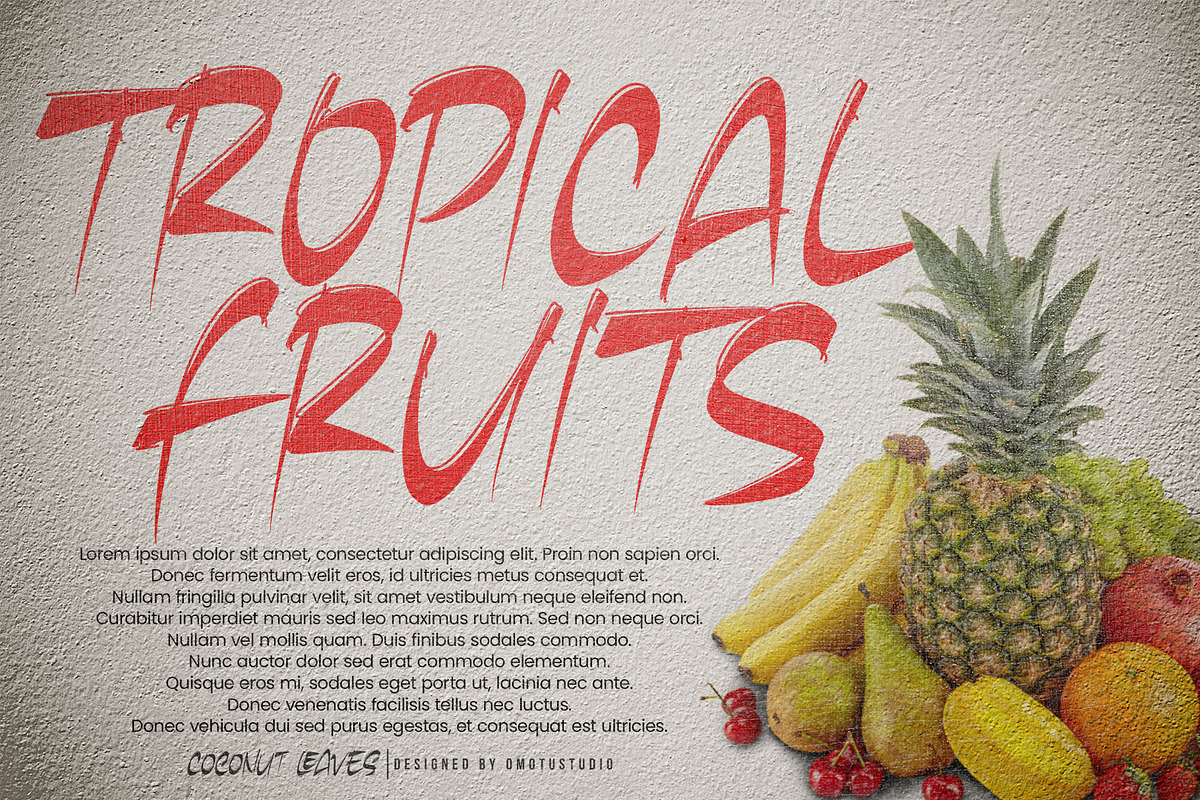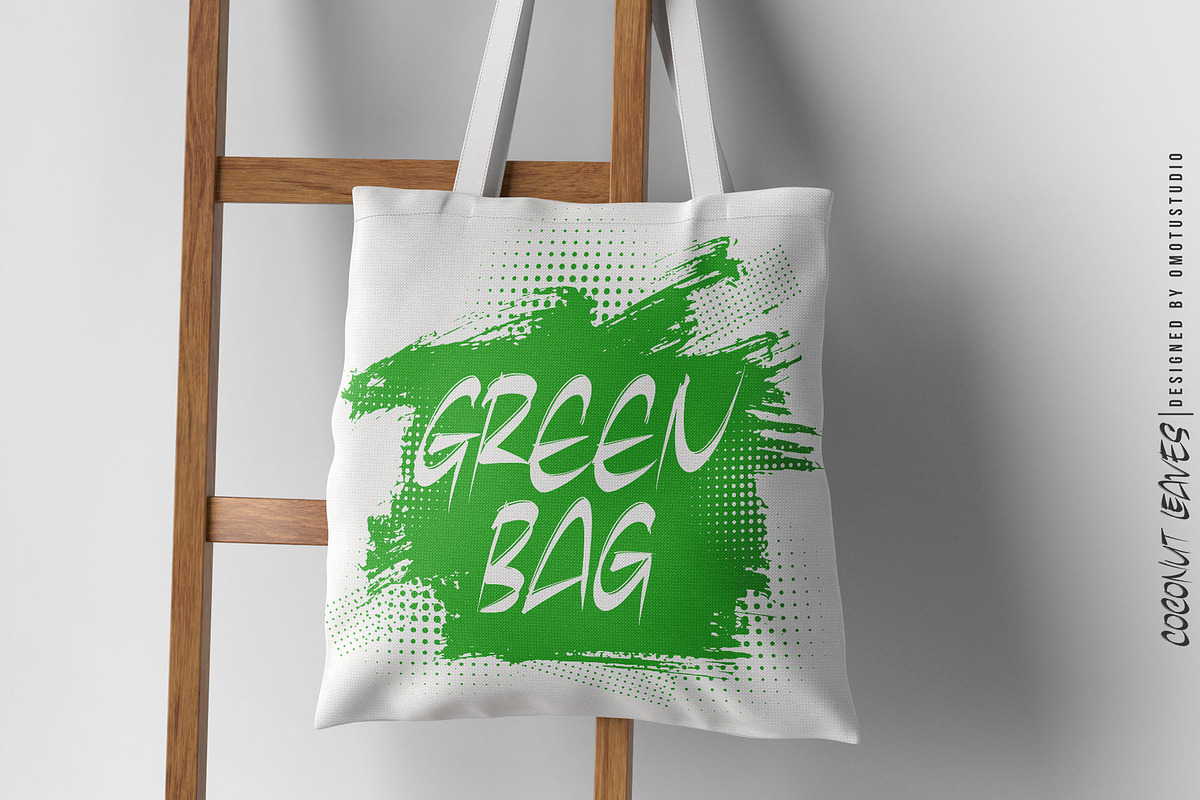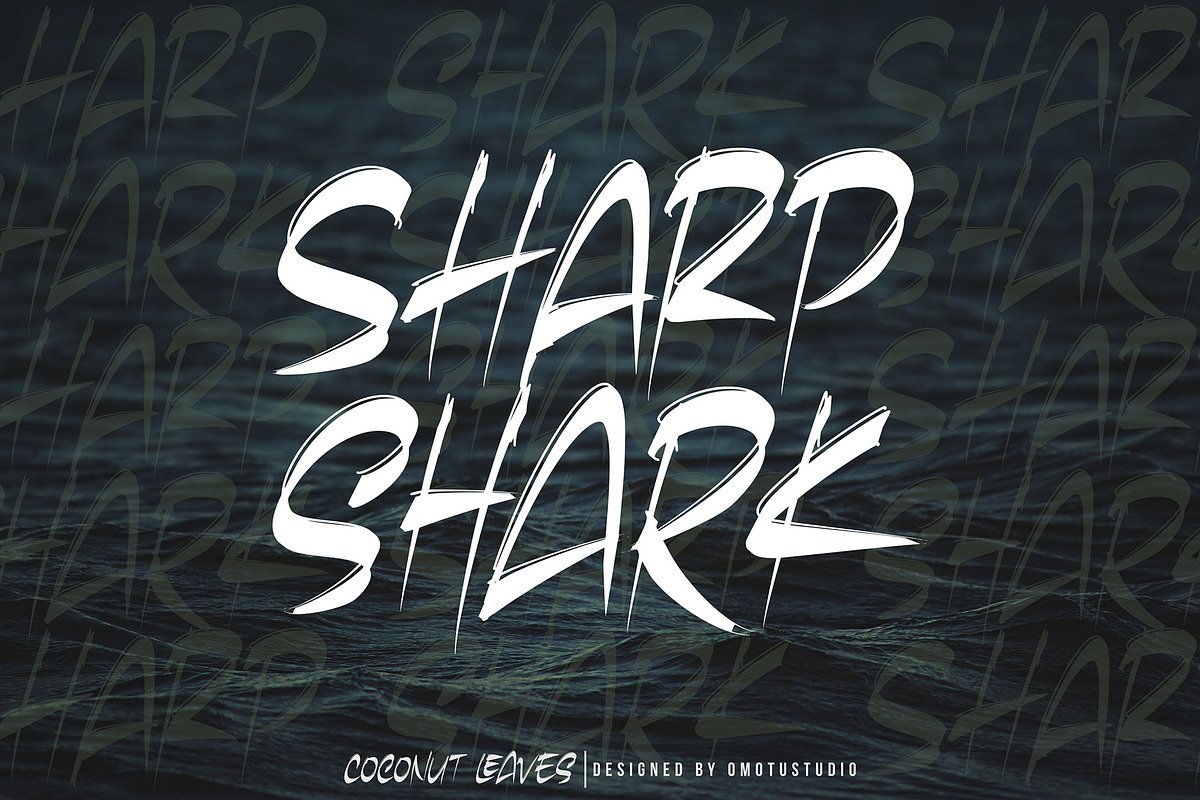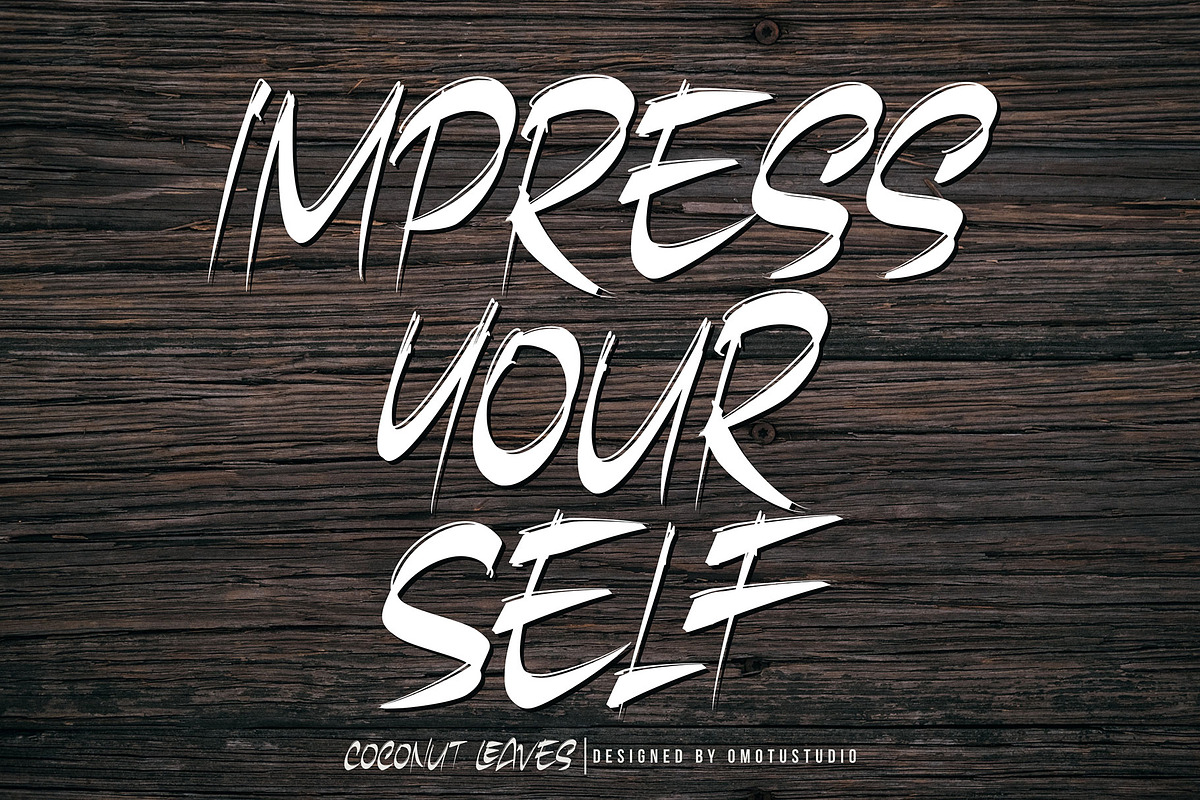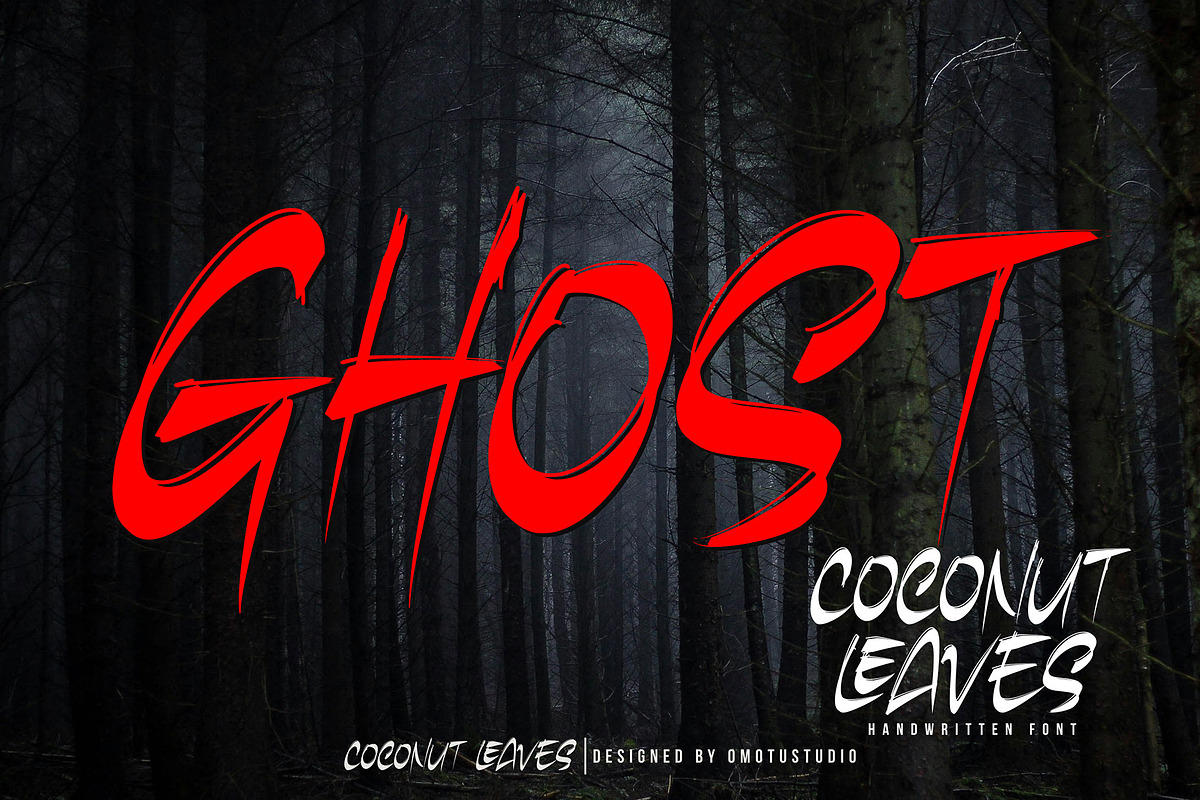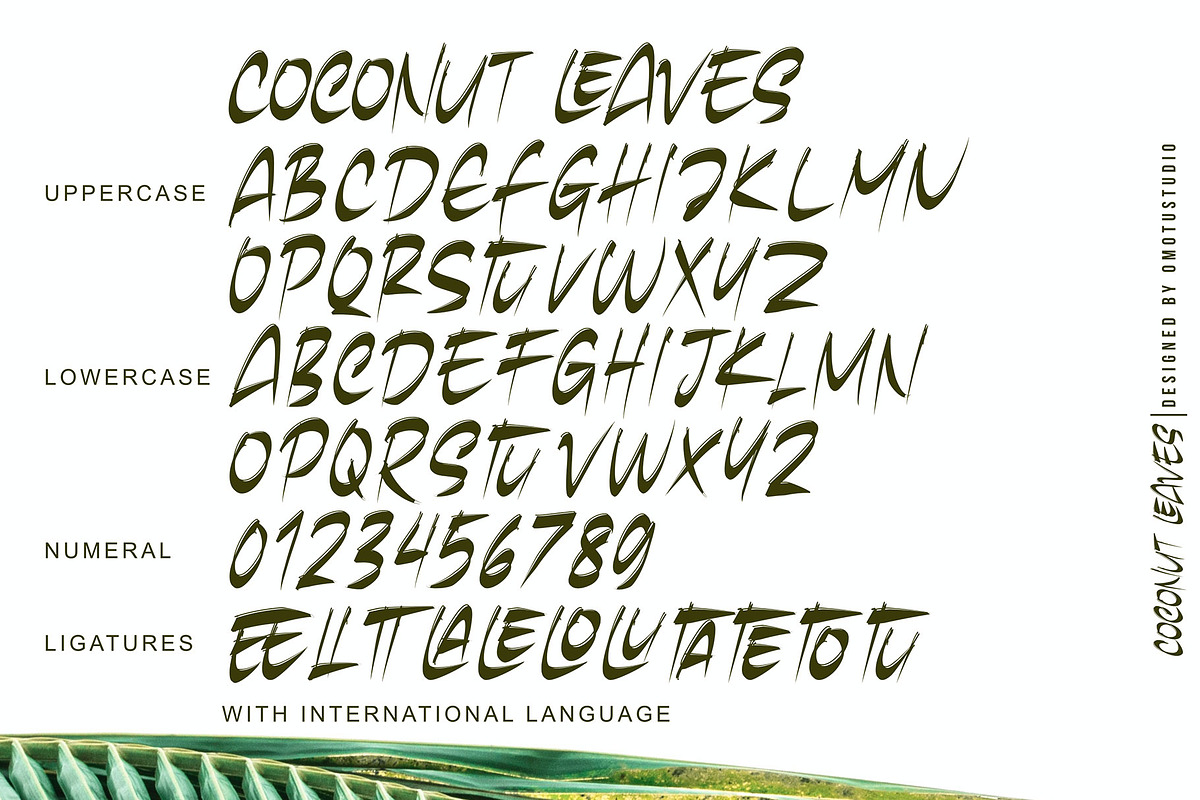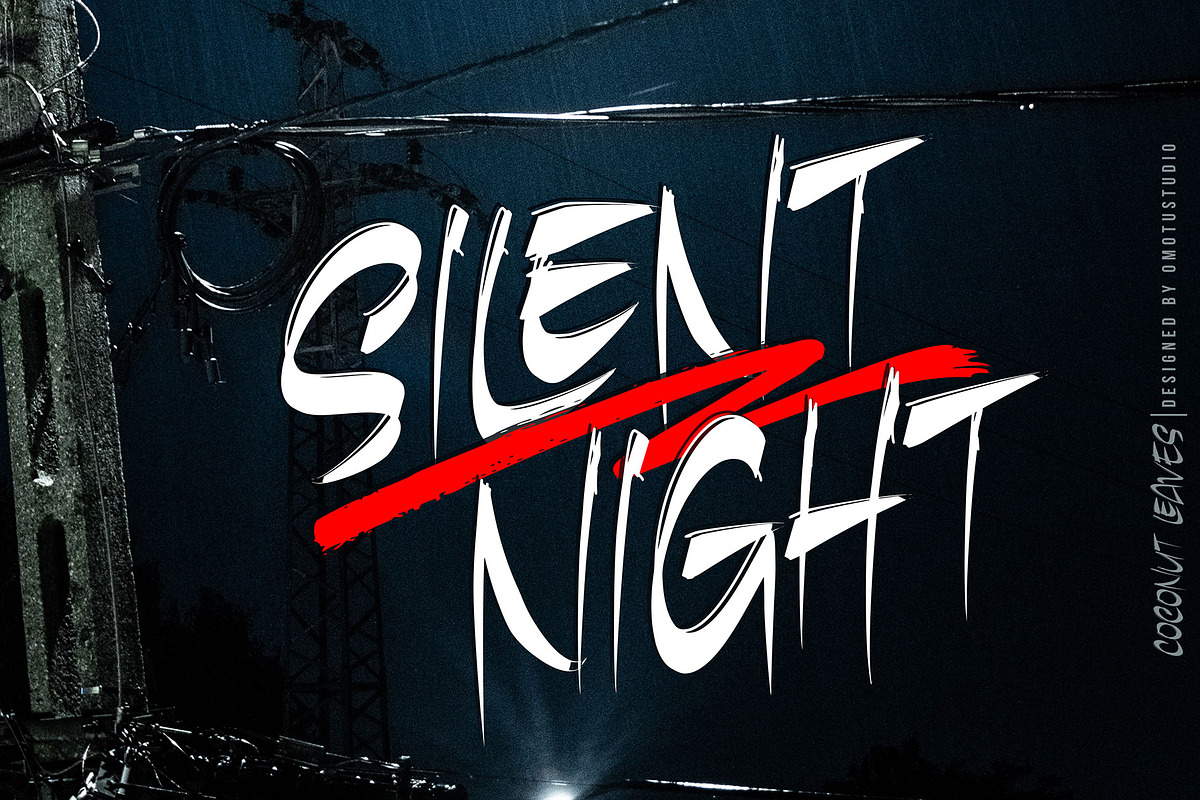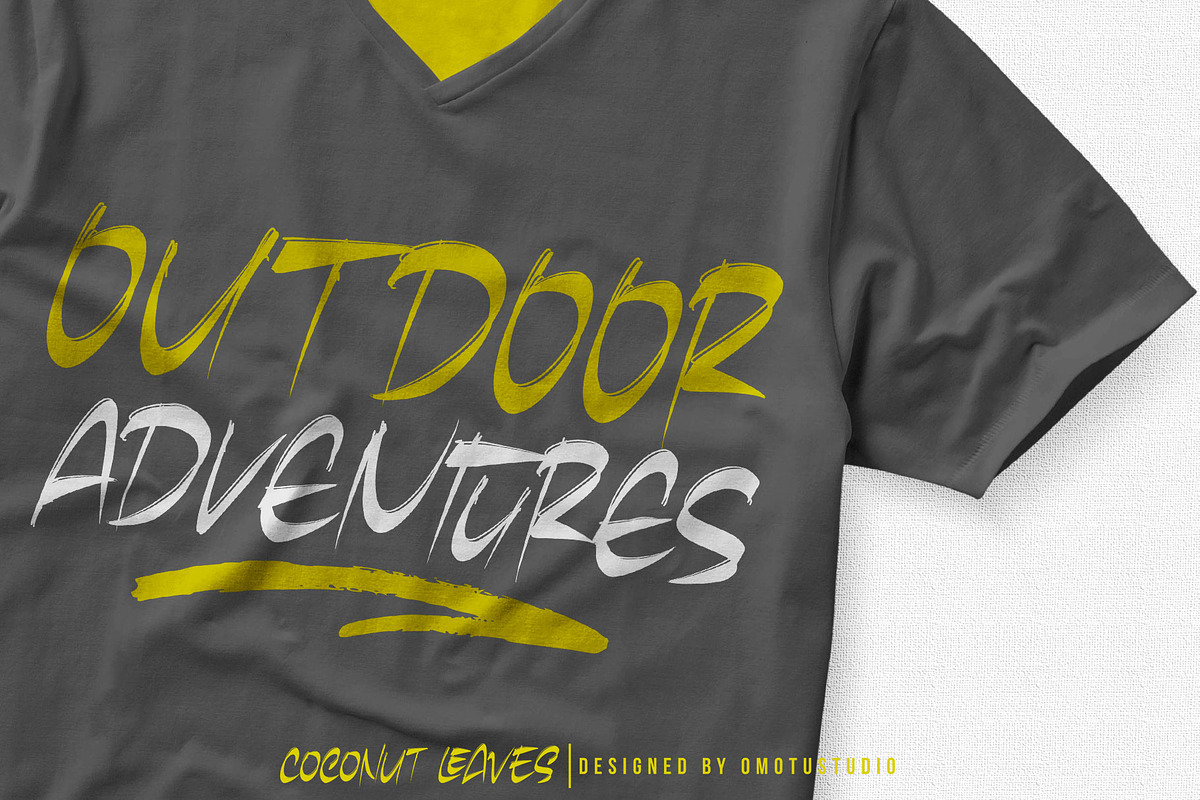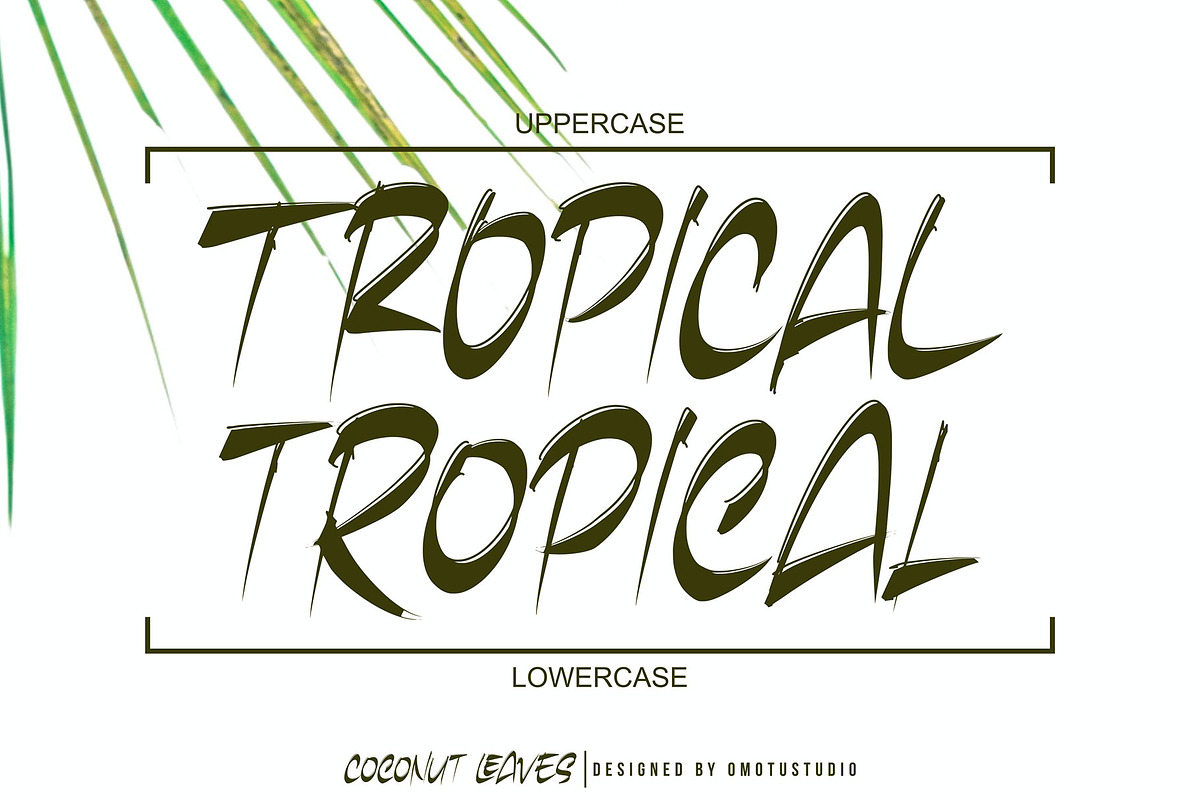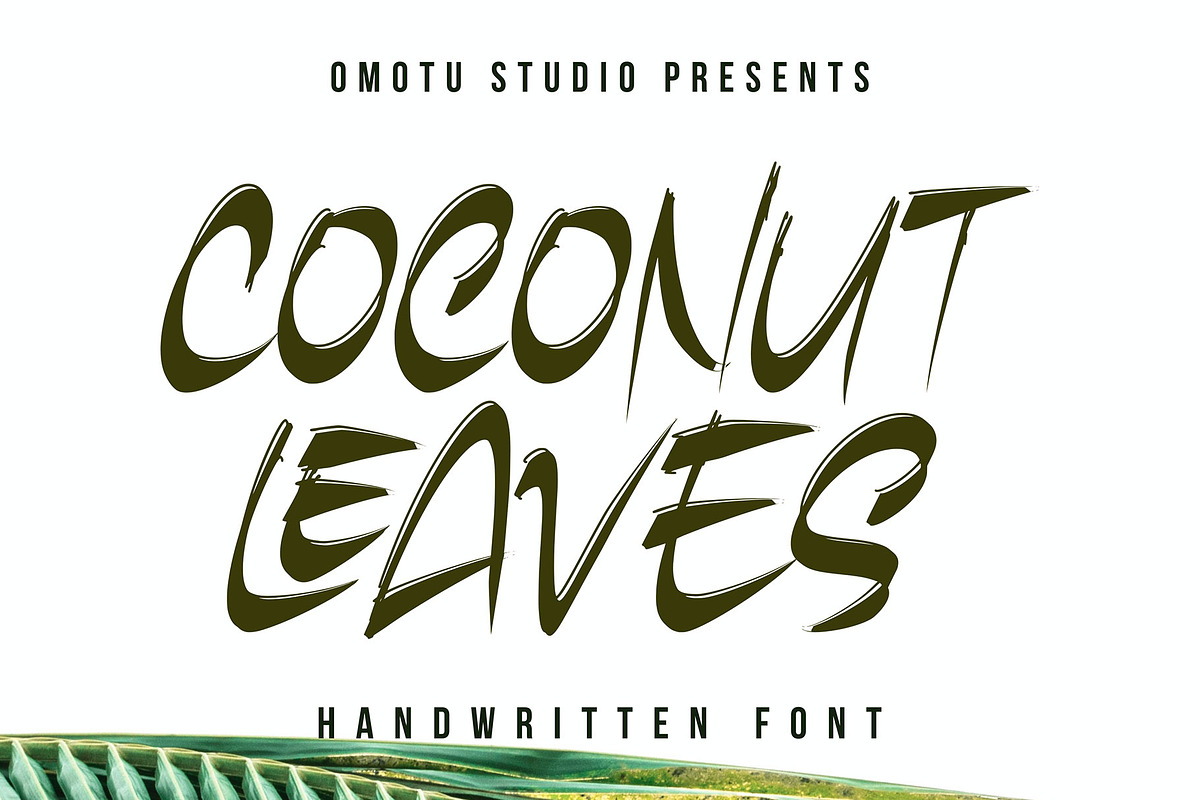
Coconut Leaves
COCONUT LEAVES! A handwritten display brush font, all caps. Coconut Leaves font is suitable for branding, logotype, apparel, T-shirt, Hoodie, product packaging, quotes, flyer, poster, book cover, advertising, etc.
- Features: All uppercase, numerals, punctuations, and ligatures